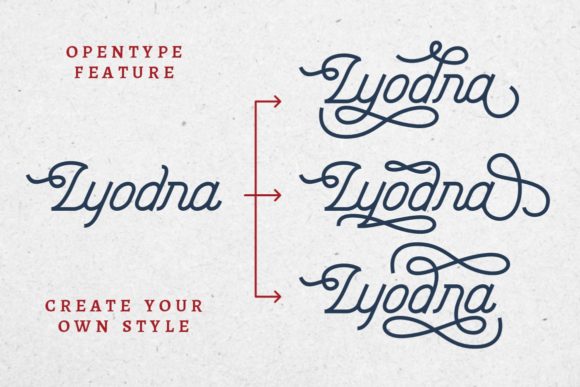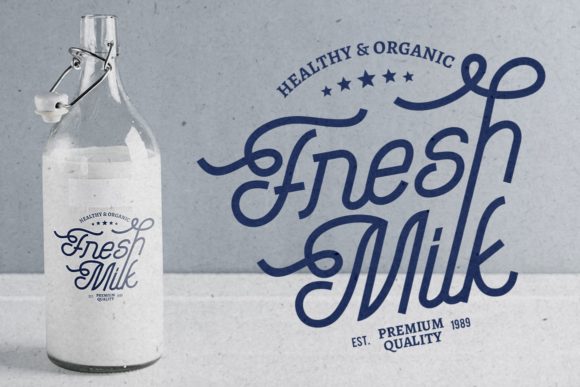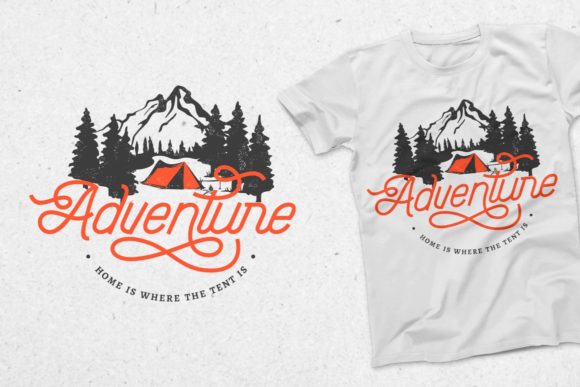
Introduction to Lyodra Font Font
Fonts play a crucial role in design, and the Lyodra Font font is a typeface that brings both character and versatility to any project. Whether you’re working on a branding project, a website, or a print design, the Lyodra Font font offers a unique style that can elevate your work.
Lyodra feels playfully nostalgic and delivers an incredible vintage aesthetic.
Use this handwritten font to add that special retro touch to any design idea you can think of .
Key Features of Lyodra Font Font
Why Choose Lyodra Font Font?
The Lyodra Font font is more than just a typeface – it’s a design tool that helps you communicate your message with style and clarity. Its unique character set and versatile design make it suitable for a wide range of applications, from elegant invitations to bold headlines.
With its carefully crafted letterforms and balanced proportions, the Lyodra Font font ensures readability and visual appeal across all mediums.
What makes Lyodra Font font special?
The Lyodra Font font stands out with its unique design, exceptional readability, and versatility across various design applications.